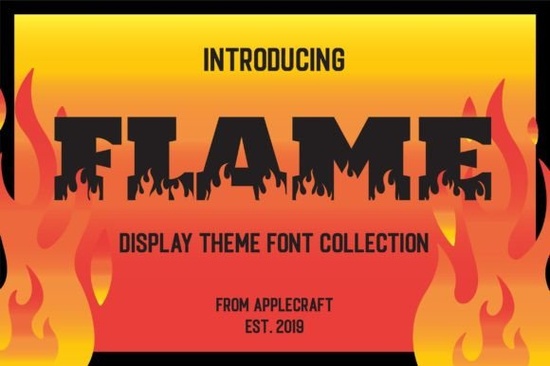
If you’ve been searching for a font that adds warmth, energy, and personality to your projects, Flame Font might be exactly what you need. It’s not your average typeface it’s built with curves and flickers that mimic the movement of fire, making it ideal for anything from bold quotes to playful kids’ designs. Whether you’re designing t-shirts, logos, or social media graphics, this decorative font brings visual heat without overwhelming your layout. And here’s something handy: uppercase and lowercase letters look identical, so you don’t have to worry about switching cases to keep your design consistent.
What kinds of projects work best with Flame Font?
This font shines in casual, expressive, or attention-grabbing contexts. Think:
- T-shirt and hoodie designs especially for motivational quotes or music-themed merch
- Kids’ party invitations birthdays, summer camps, or superhero themes
- SVG cut files for Cricut or Silhouette users who want bold, readable text
- Social media banners or blog headers that need to stand out
- Branding elements for cafes, fitness studios, or creative startups looking for a fiery spark
It’s also surprisingly versatile across print and digital. The stylized letterforms hold up well even at smaller sizes, which isn’t always true for decorative fonts. If you like Flame but want to explore similar styles, check out Cute Paws for something softer or Spring Smile if you’re going for cheerful vibes.
How does Flame compare to other decorative fonts?
Unlike some ornate script fonts that can become hard to read, Flame keeps its structure clean while still delivering personality. Each character has a sense of motion like it’s dancing or flickering but never loses legibility. That’s rare in this category.
If you’ve used Dripx before, you’ll notice Flame is less drippy and more energetic. Where Dripx leans into liquid textures, Flame feels alive with sparks and movement. It pairs especially well with minimalist layouts or solid color backgrounds, letting the font do the talking without competing visuals.
Any tips for pairing Flame Font with other typefaces?
Absolutely. Because Flame is so stylized, it works best when paired with simple, neutral fonts. Try combining it with:
- A clean sans-serif like Montserrat or Lato for body text
- A handwritten script like Pacifico if you want contrast without clutter
- A bold slab serif for headlines that need extra weight next to Flame’s curves
Don’t try to pair it with another decorative font unless you’re intentionally going for chaos. Flame wants to be the star, so give it space to shine.
And since uppercase and lowercase are visually identical, you don’t need to remember special rules or toggle caps lock to keep your design looking cohesive. That little detail saves time and reduces frustration especially when you’re working under deadline.